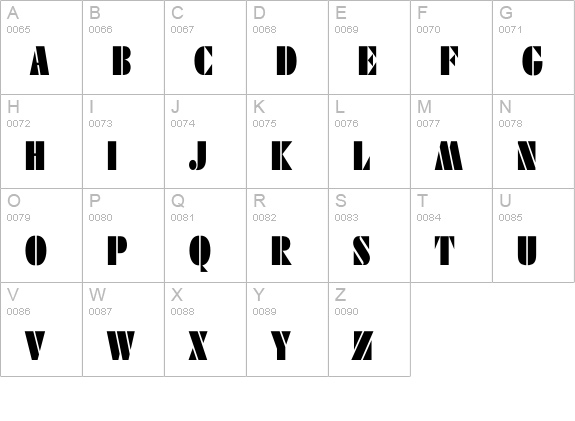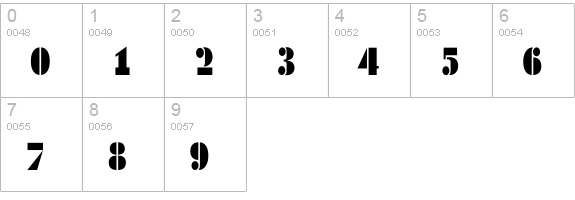
DekoblackCond Font Details
DekoblackCond is a stunning decorative font that exudes elegance and sophistication. With its sleek and modern design, this font is perfect for adding a touch of luxury to any project. The bold, condensed letterforms make a powerful statement, while the intricate details and unique styling set DekoblackCond apart from other fonts. What's even better is that DekoblackCond is available for free download at FontsMarket.com. This means you can easily add this striking font to your collection without any cost. Whether you're designing a logo, creating a poster, or crafting a stylish invitation, DekoblackCond will elevate your project to the next level. Don't miss out on the opportunity to enhance your designs with this exquisite font - download DekoblackCond today and let your creativity shine!